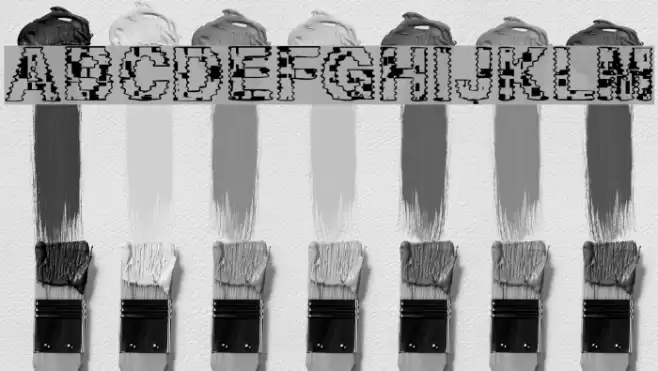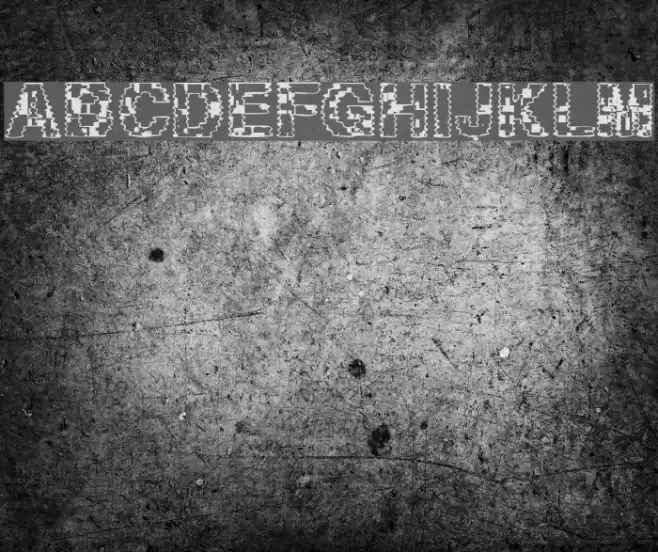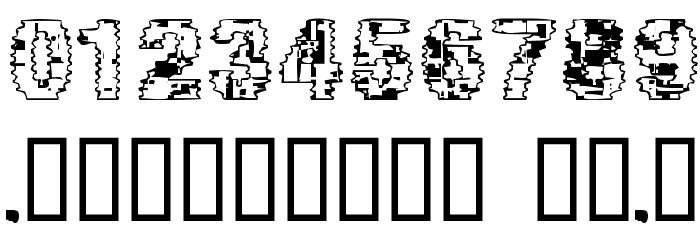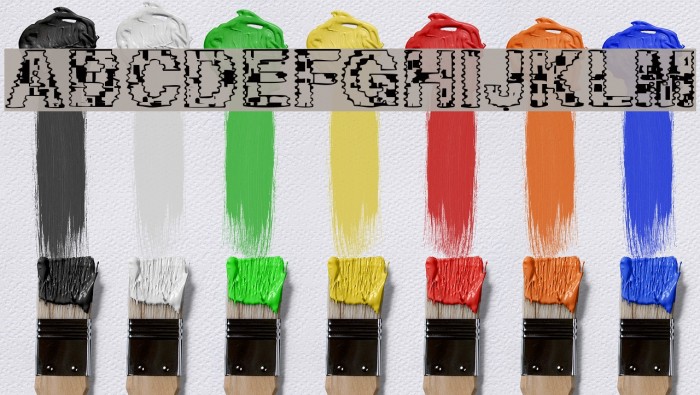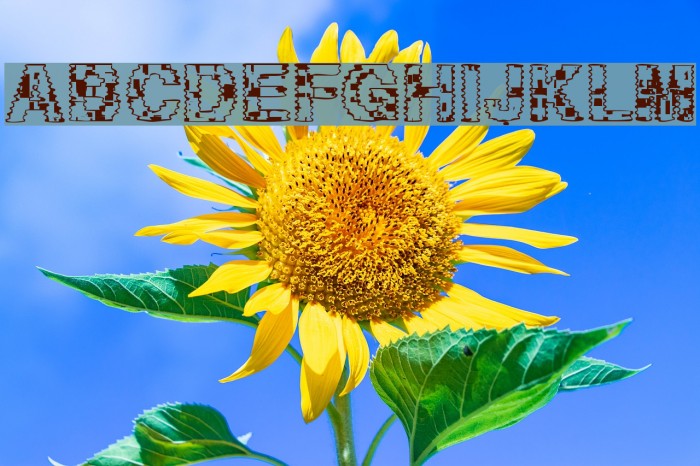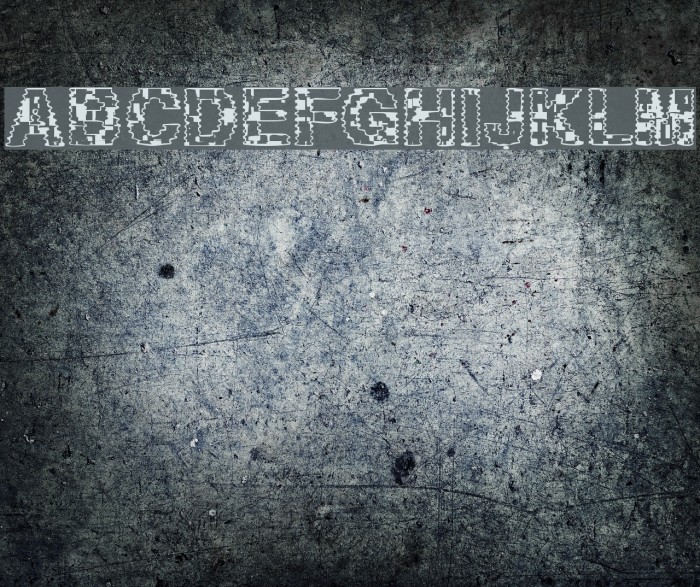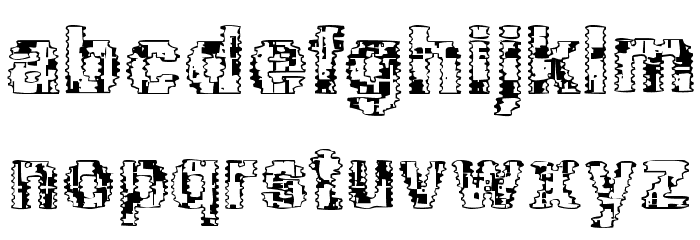
Asylum Font
Asylum Description
This font features a highly decorative and distressed style, with a unique, chaotic texture that gives it a grungy and edgy appearance. The letters are bold and have a rough, uneven outline that creates a sense of movement and energy. The uppercase and lowercase characters maintain this distressed look, making them stand out with a strong visual impact. Numbers and special characters follow the same design, ensuring consistency across all glyphs. This font is perfect for projects that require a bold, unconventional look, such as music album covers, posters, or any creative design that aims to capture attention with its distinctive style.
A bold, distressed font with a chaotic, grungy texture from Decorative fonts.
- Proposed Projects: Ideal for music album covers, edgy posters, and creative designs seeking a bold impact.
- Overall Style: Grunge, Edgy, Distressed
- Use Case: Headlines, Posters, Creative Designs